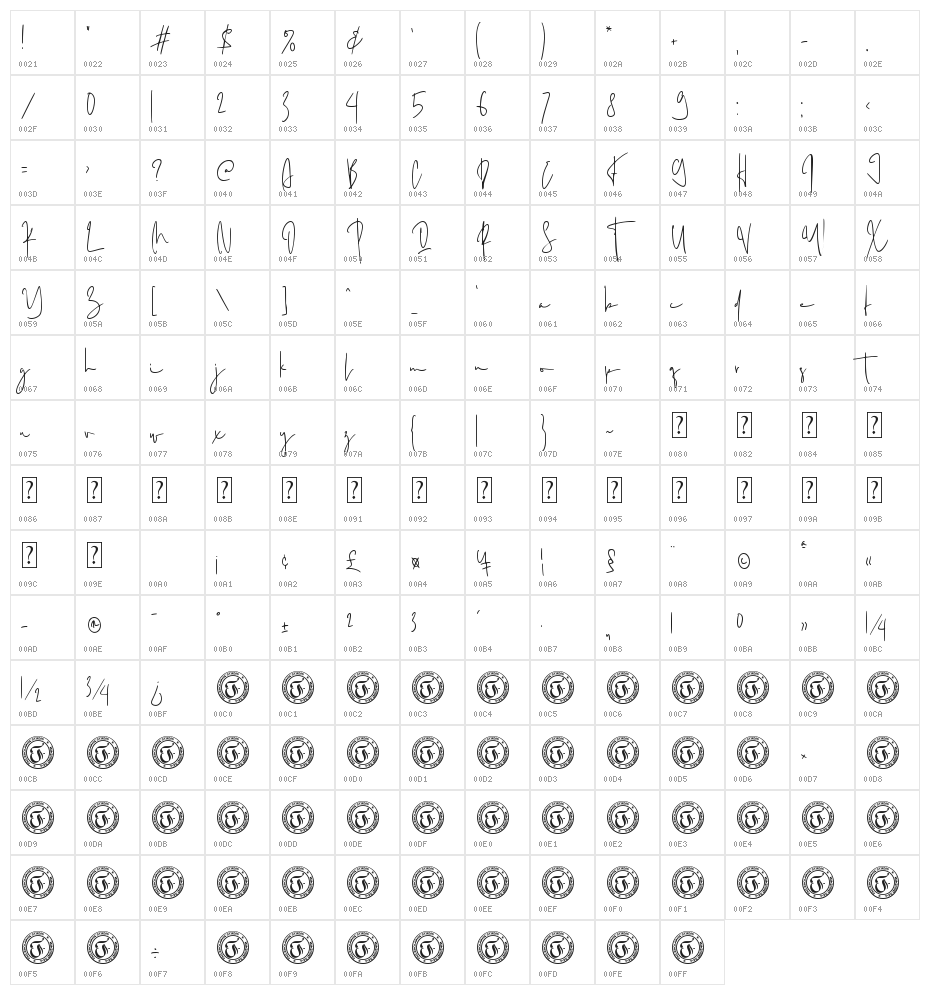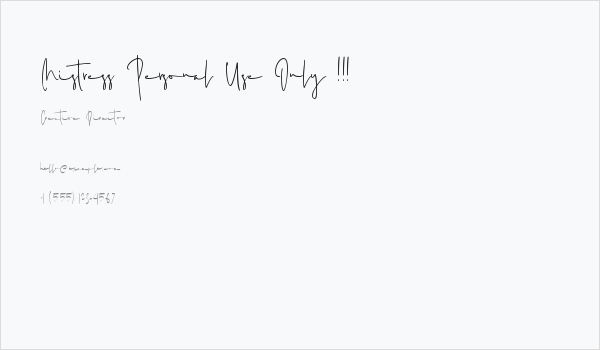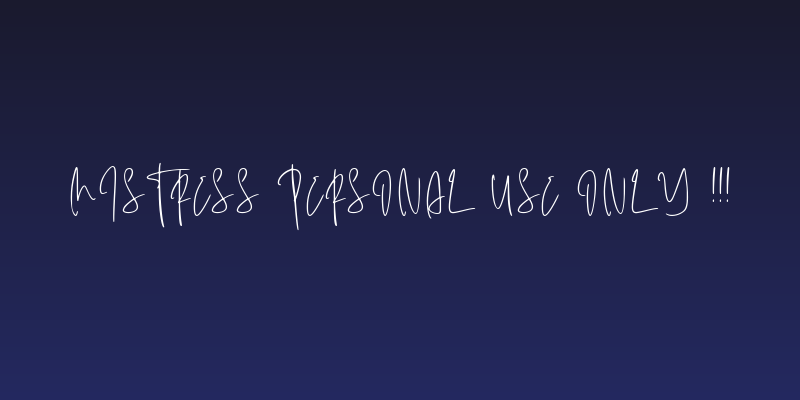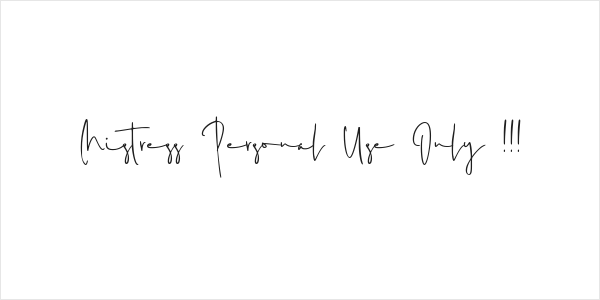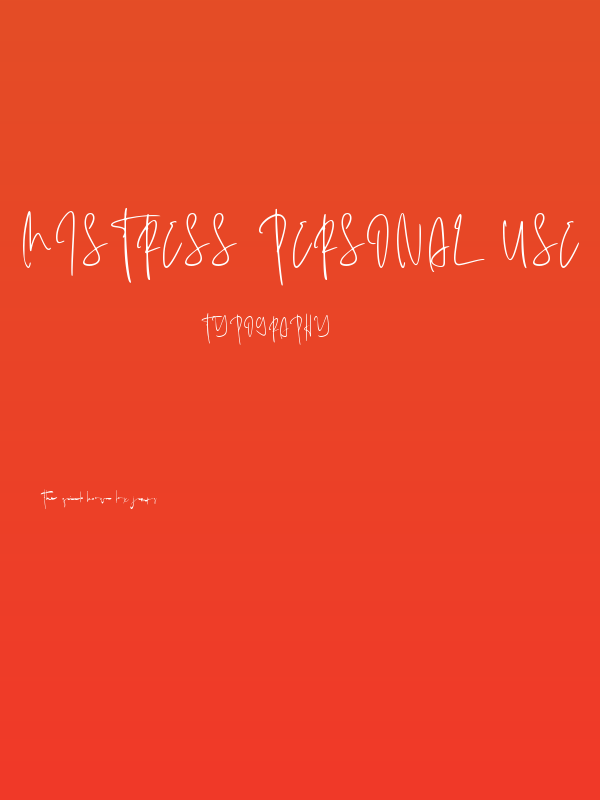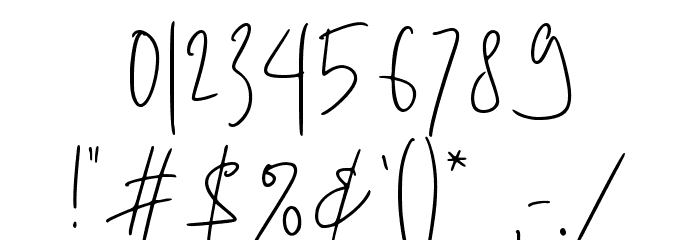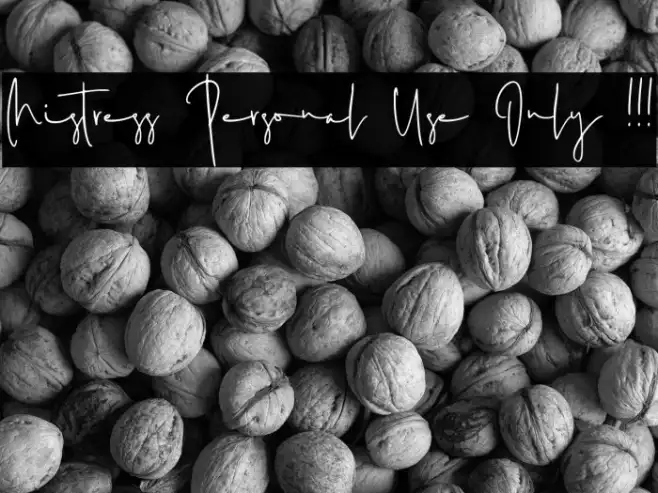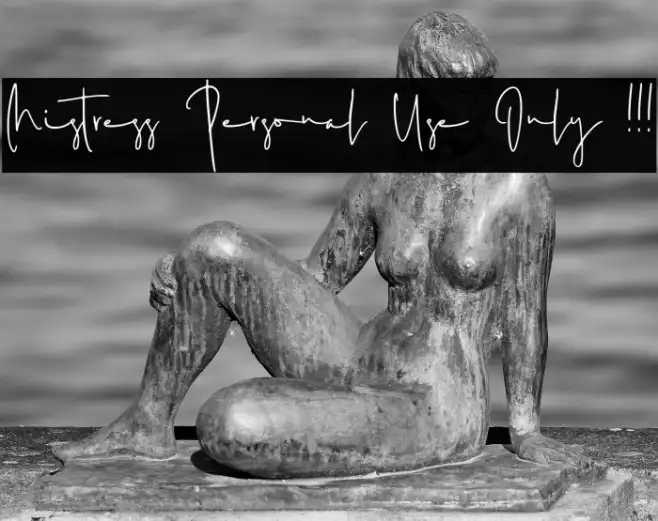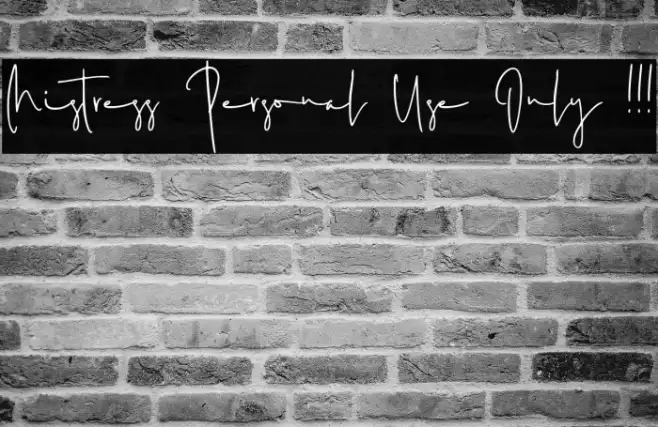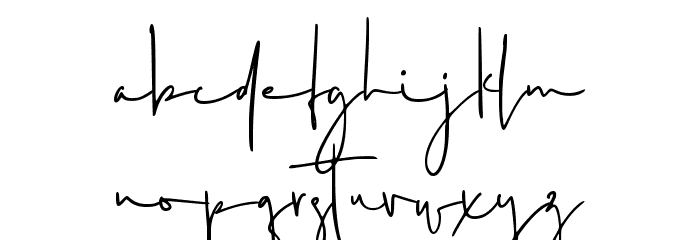
Mistress Personal Use Only !!! Font
Mistress Personal Use Only !!! Description
This font features a lively and expressive handwritten style, characterized by its fluid and dynamic strokes. The letters exhibit a playful and casual appearance, with varying heights and angles that give it a unique personality. The uppercase letters are tall and slender, while the lowercase letters maintain a consistent flow, enhancing the overall coherence of the design. Numbers and special characters are crafted with the same attention to detail, ensuring versatility across different uses. The font's organic and spontaneous feel makes it ideal for projects that require a personal touch.
| Proposed Projects | Ideal for personal branding, invitations, greeting cards, and creative projects that require a personal and artistic touch. |